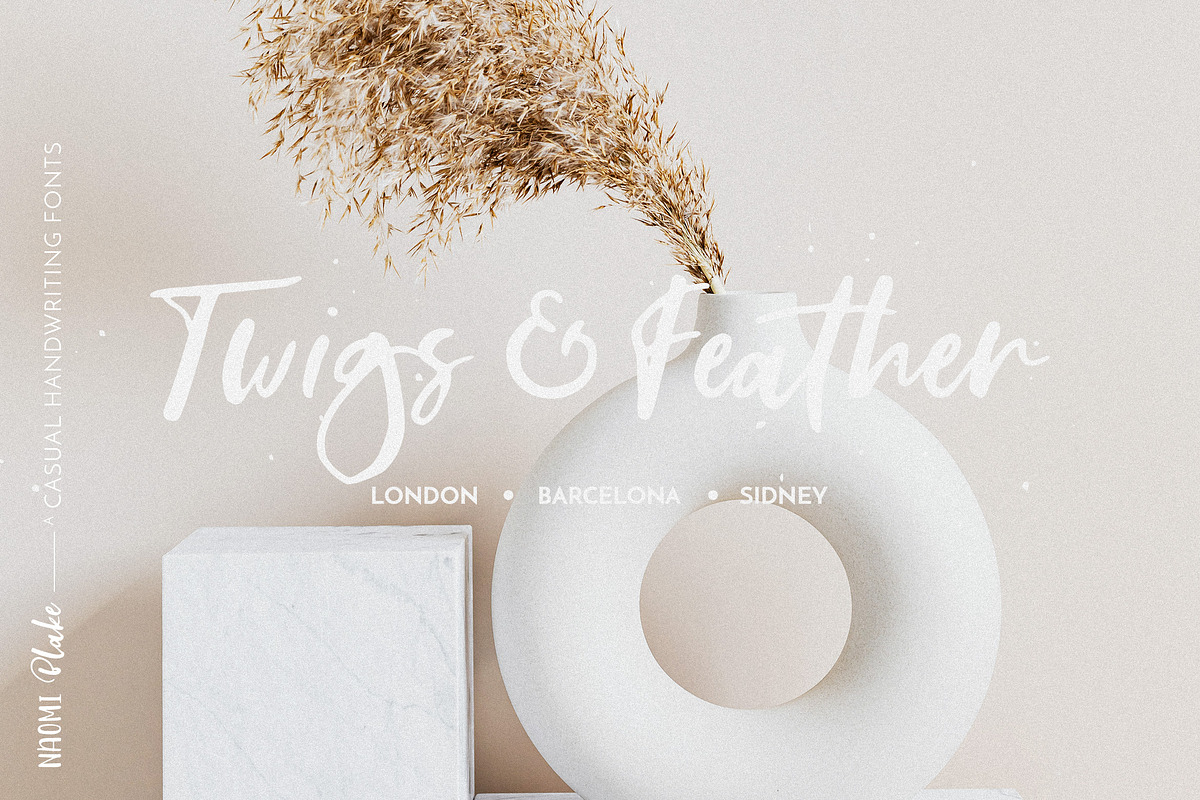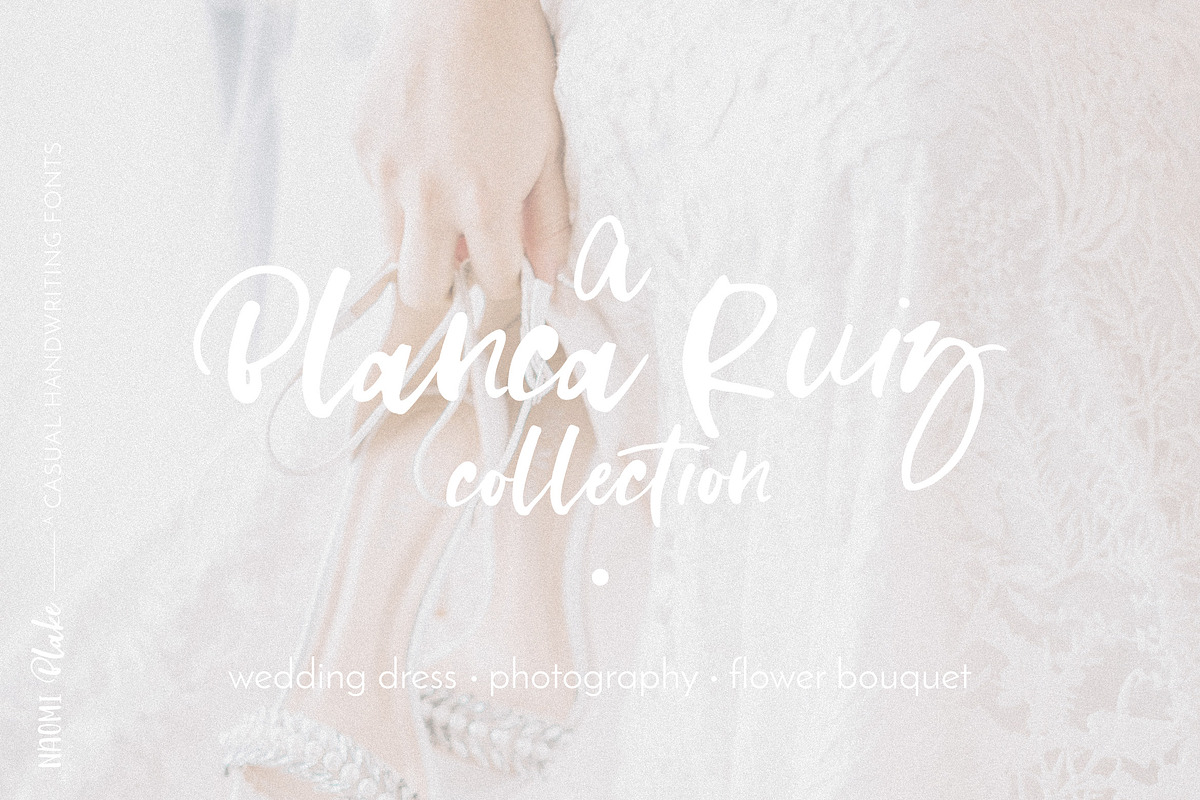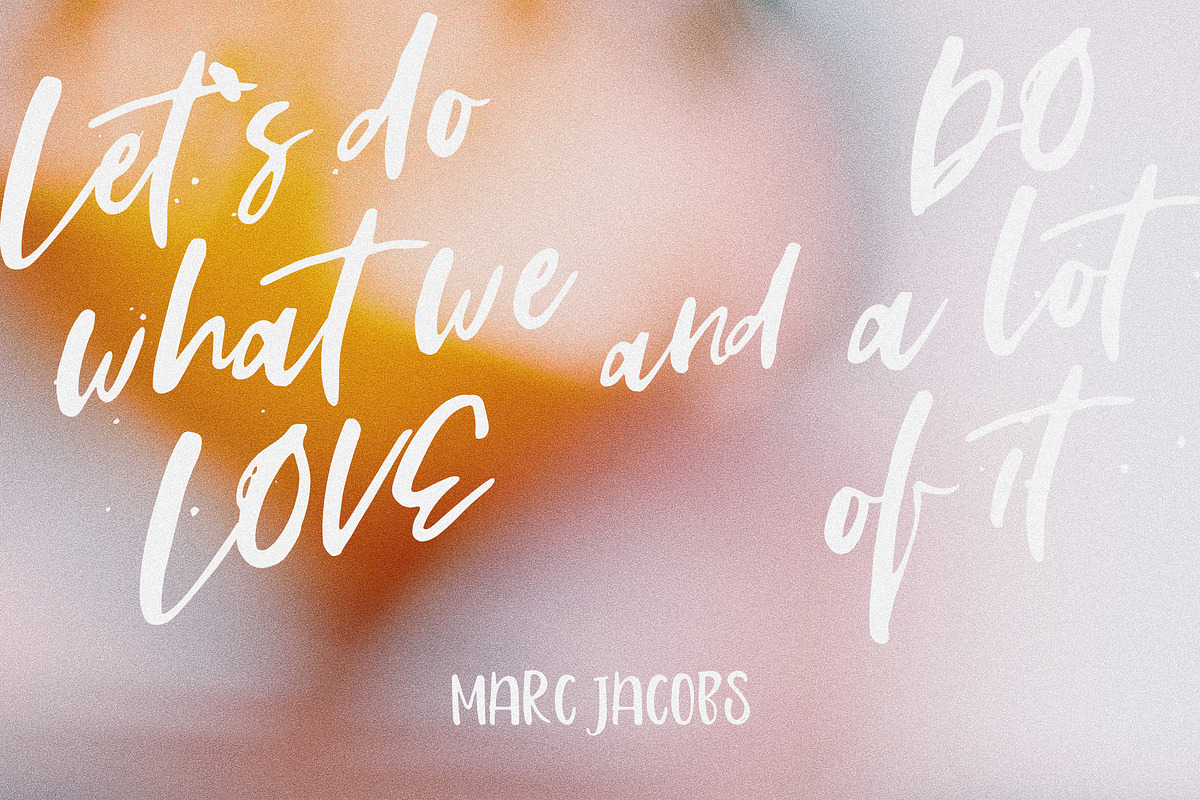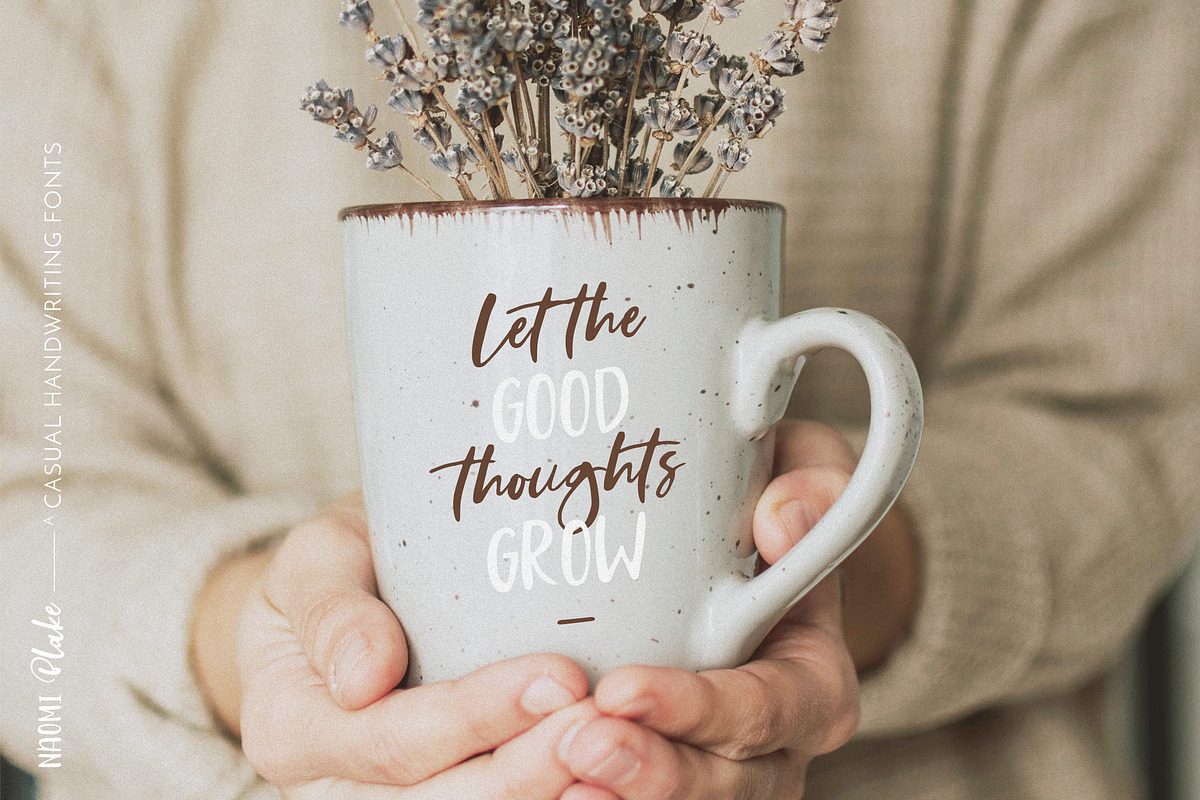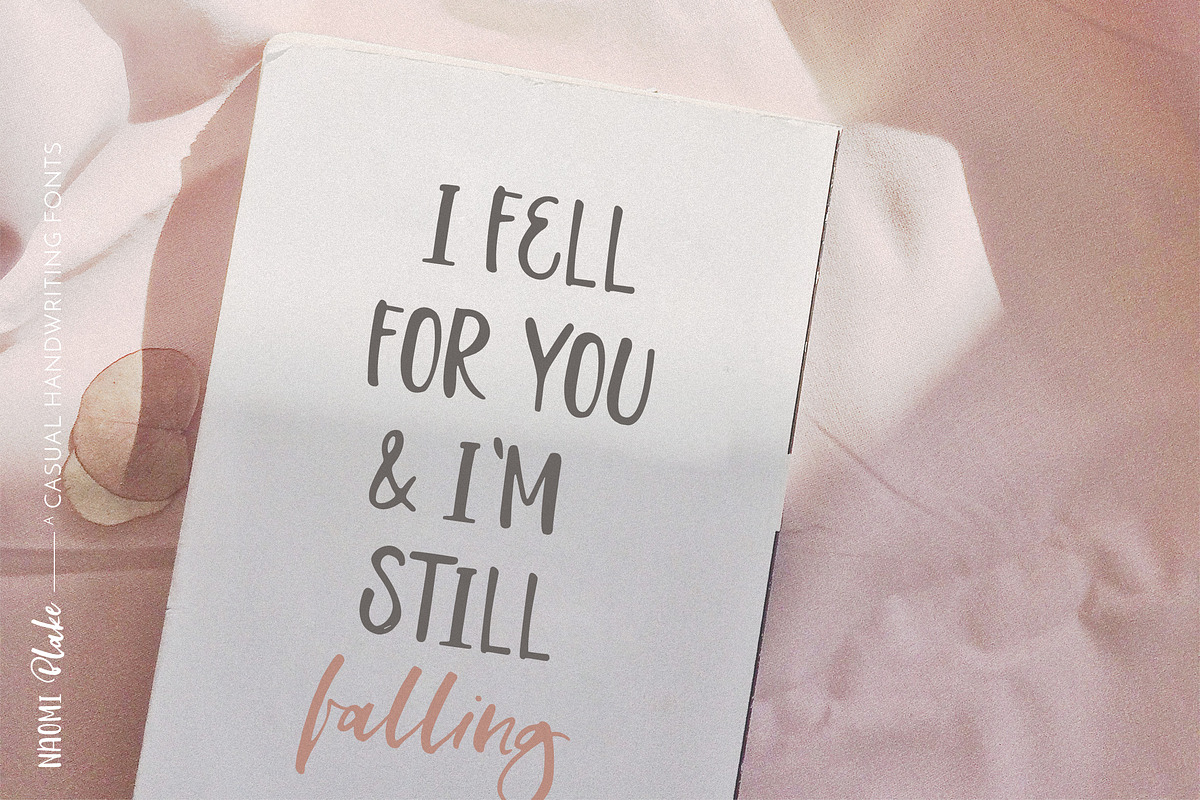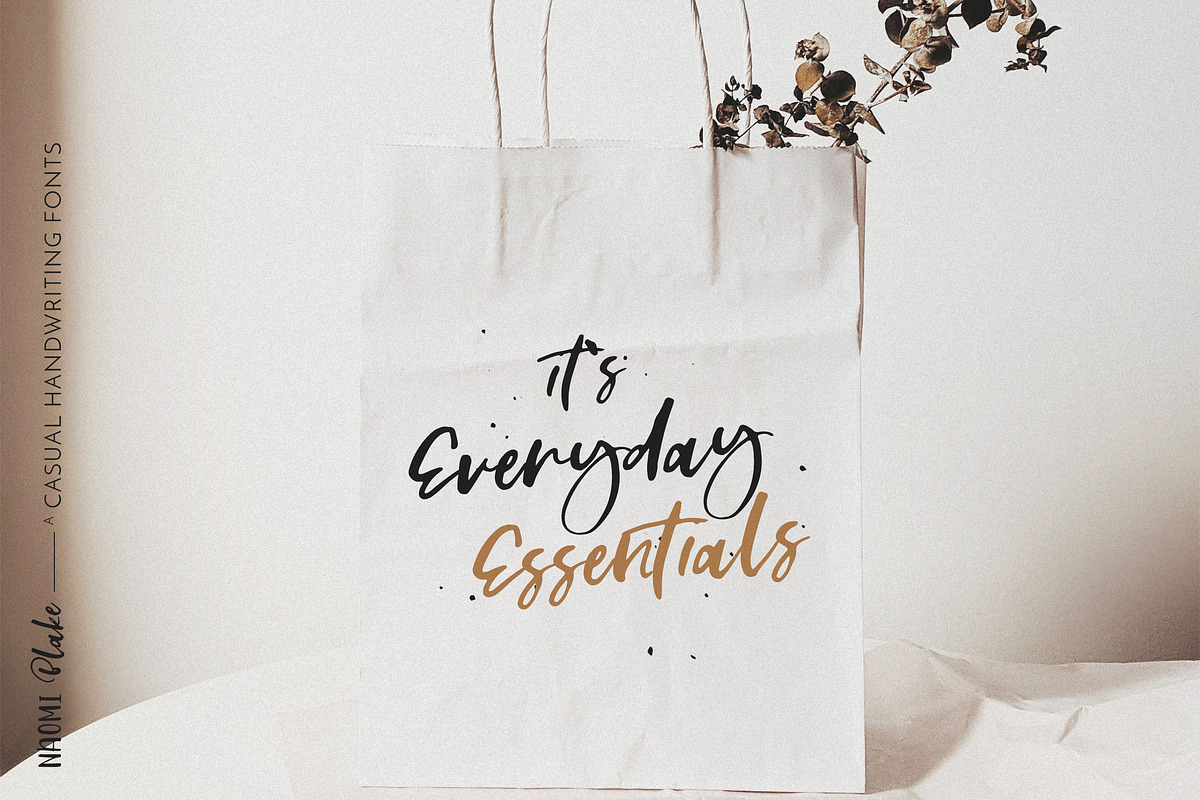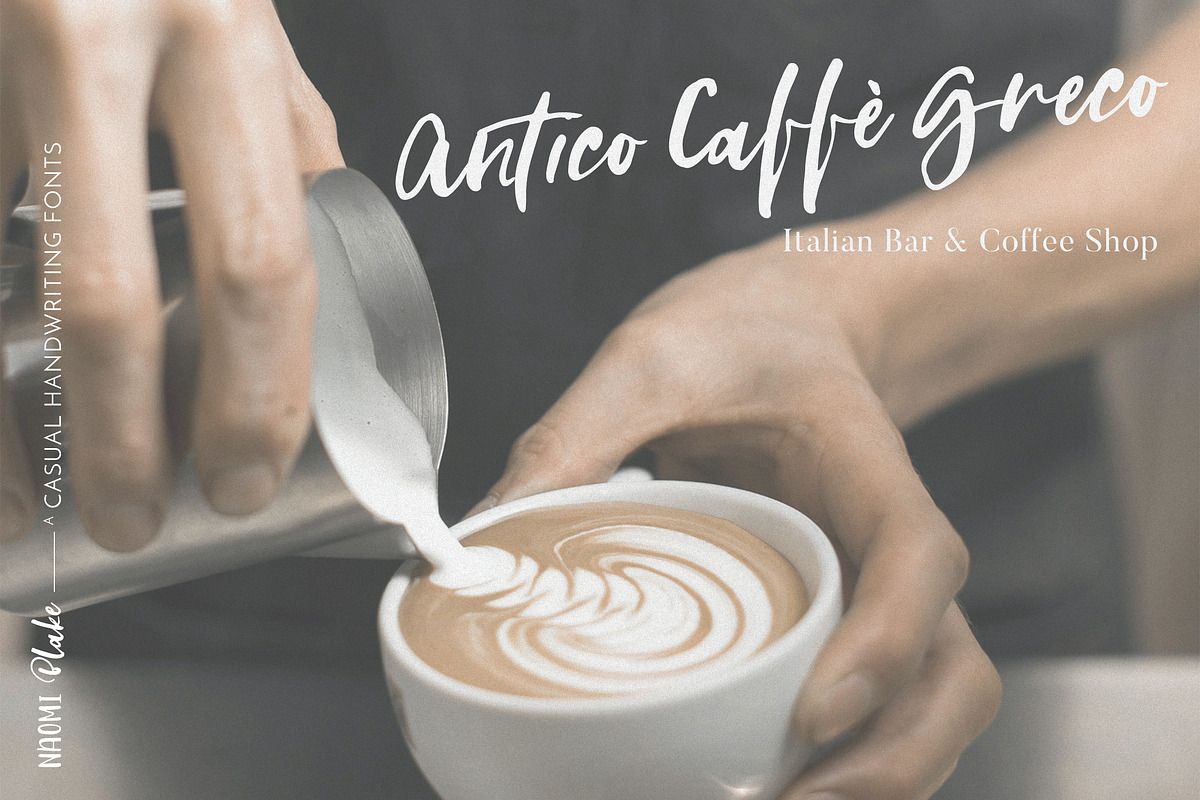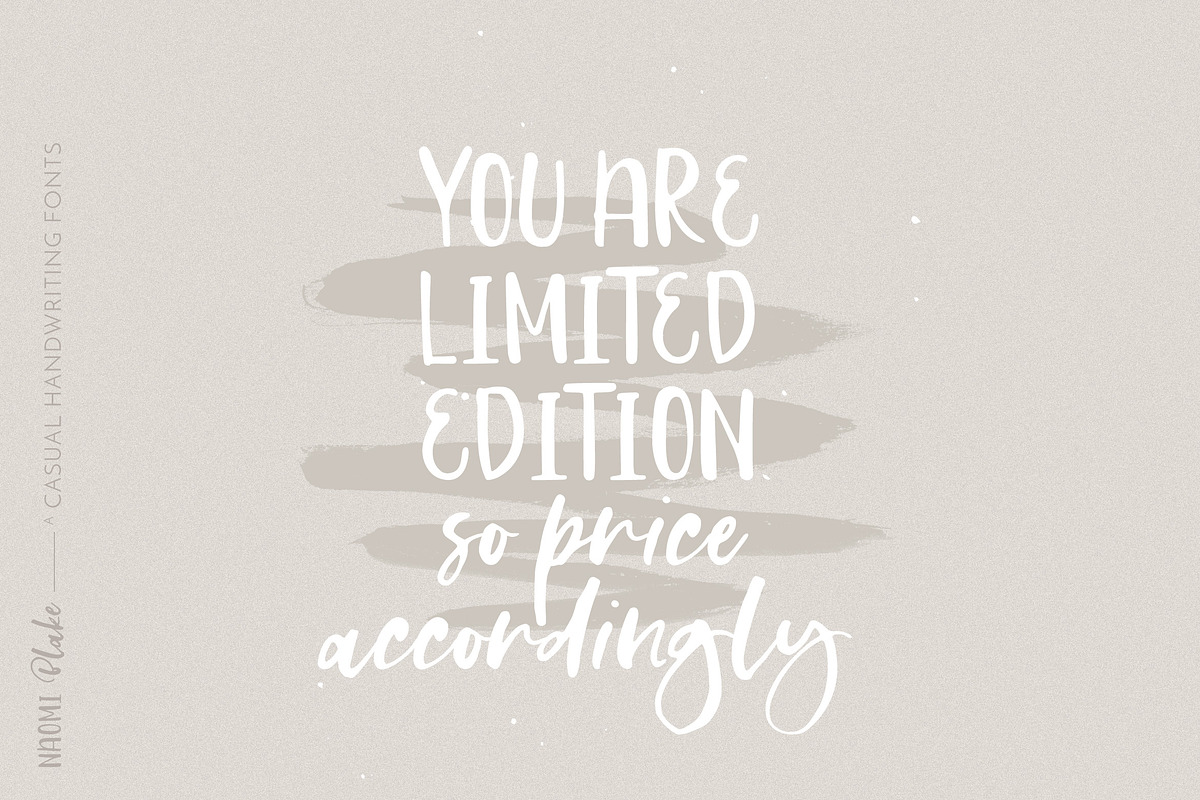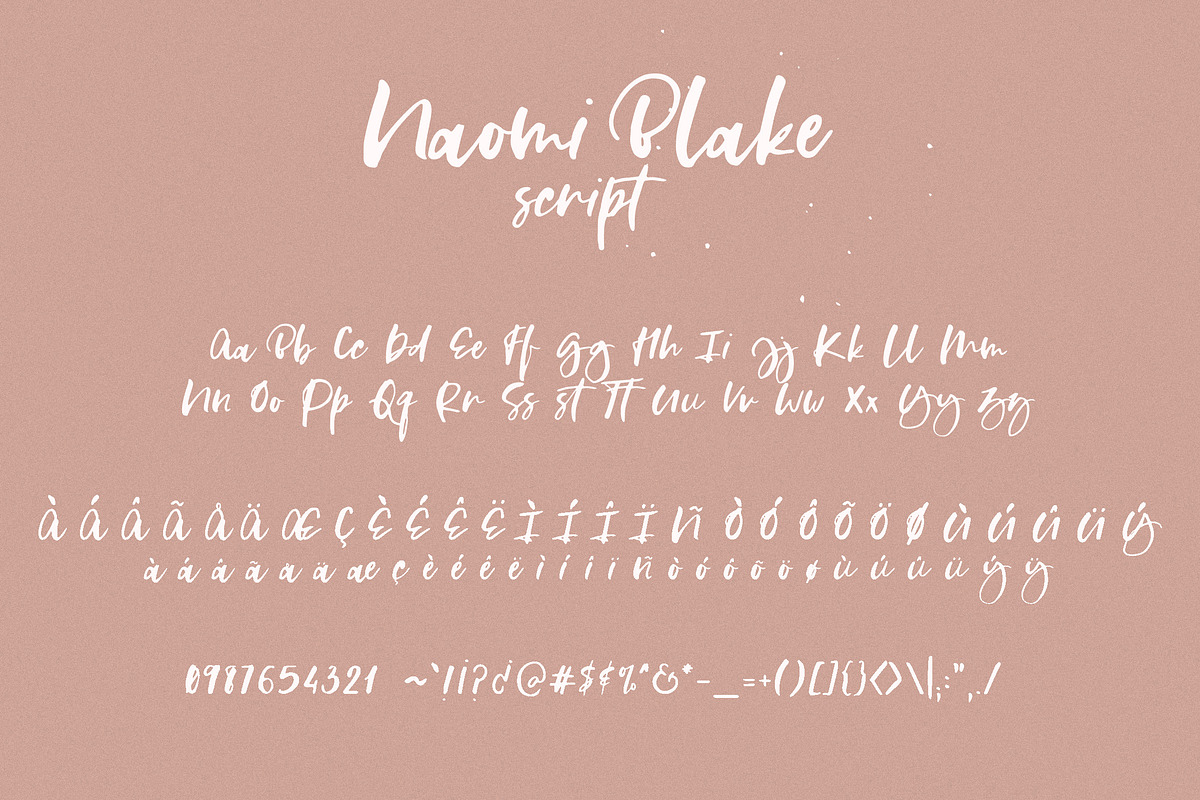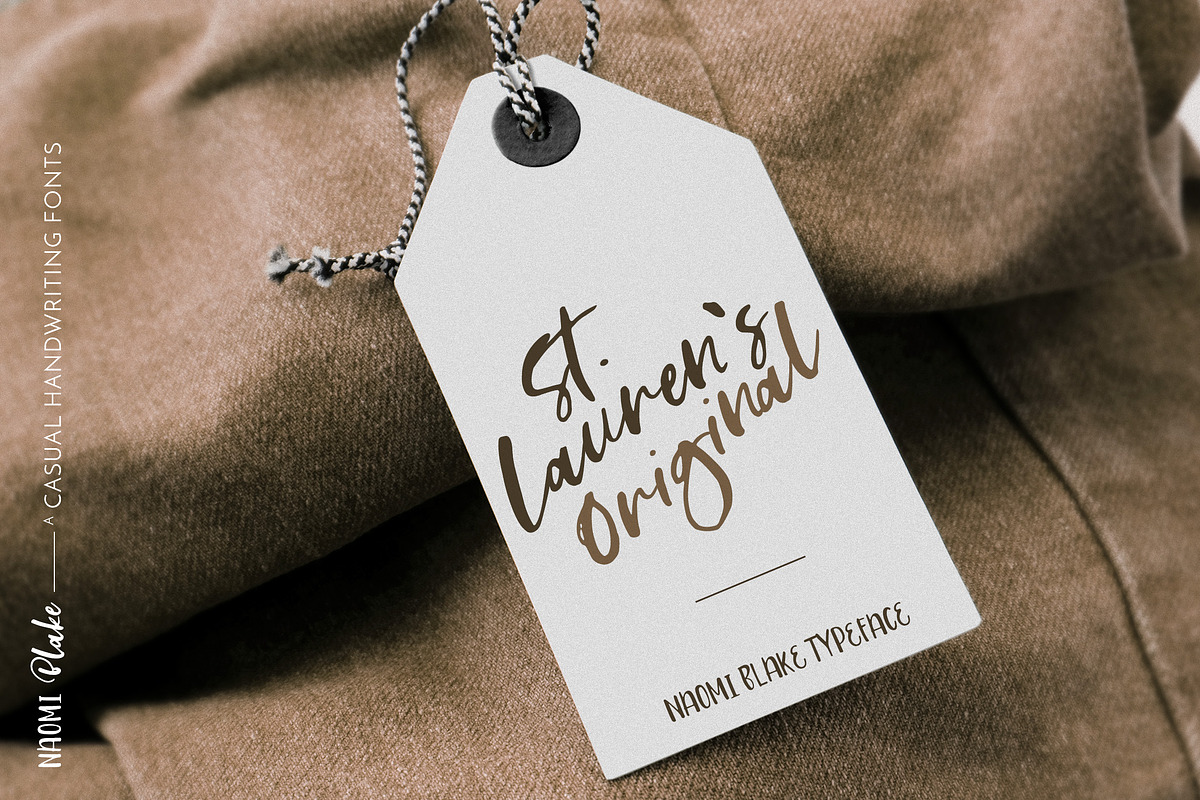
Naomi Blake
Naomi Blake is a casual & modern duo font that contains fun calligraphy and neat sans-serif font. Naomi Blake makes a perfect font for your blog, logo, social media, branding, poster, quotes, wedding cards & so forth, you decide!
The font contains accented character for international language, too (check preview images to see which glyphs are included).
Naomi Blake Features:
Duo Font: Script & Sans-Serif
Fun Calligraphy Script
Neat & Tidy Sans-Serif
Natural & Modern Hand Writing
Accented Glyphs for Multilingual Purpose